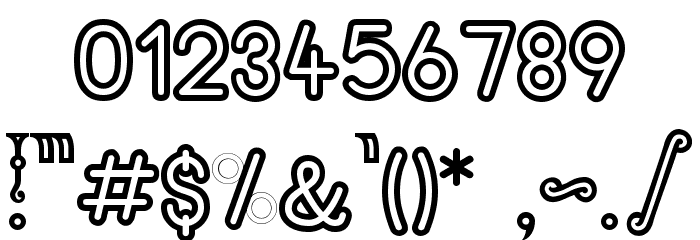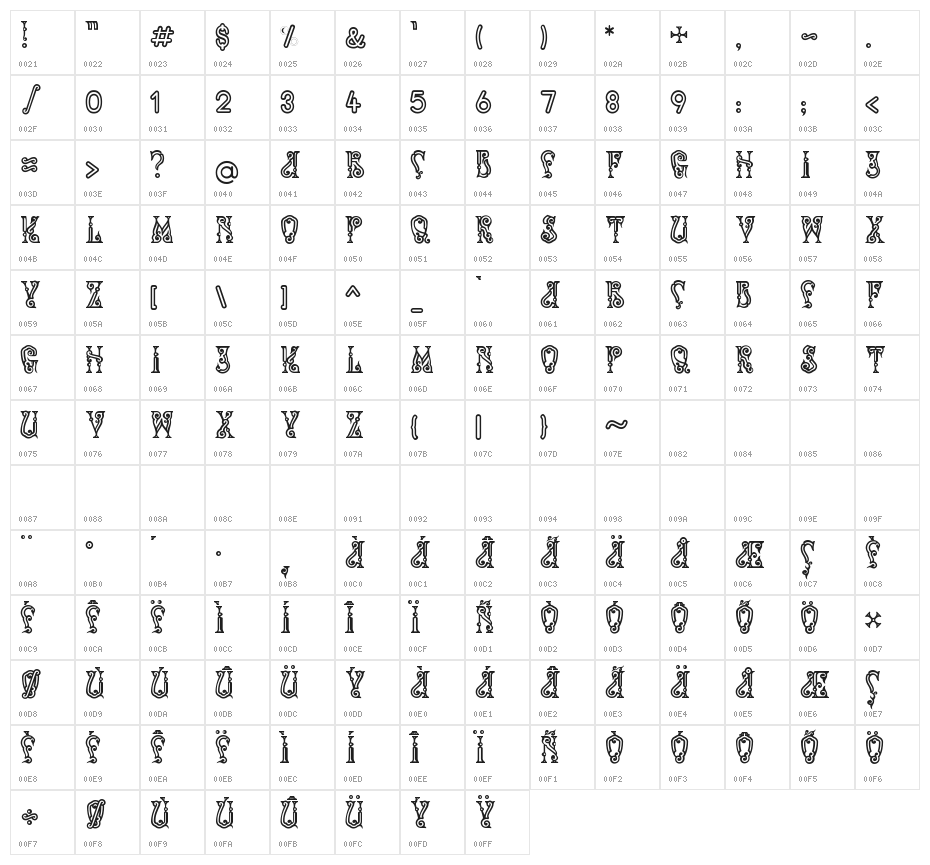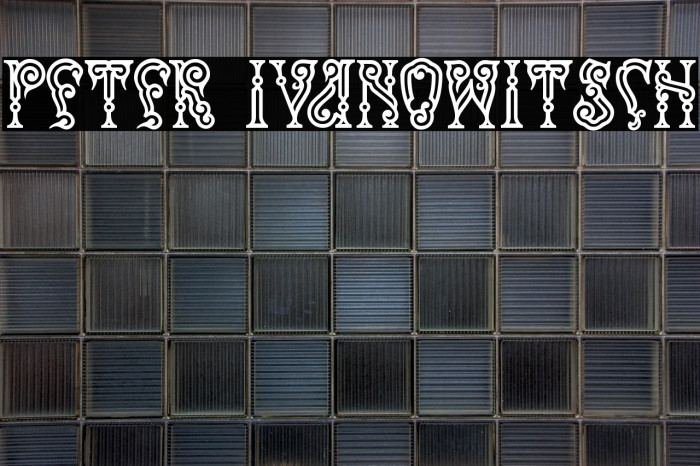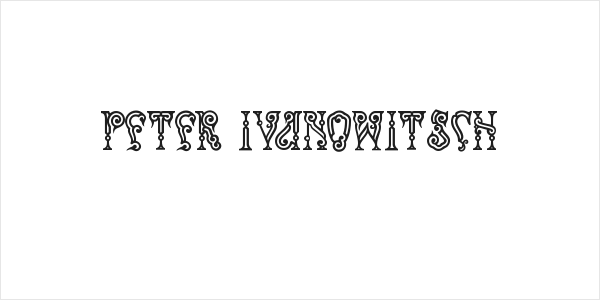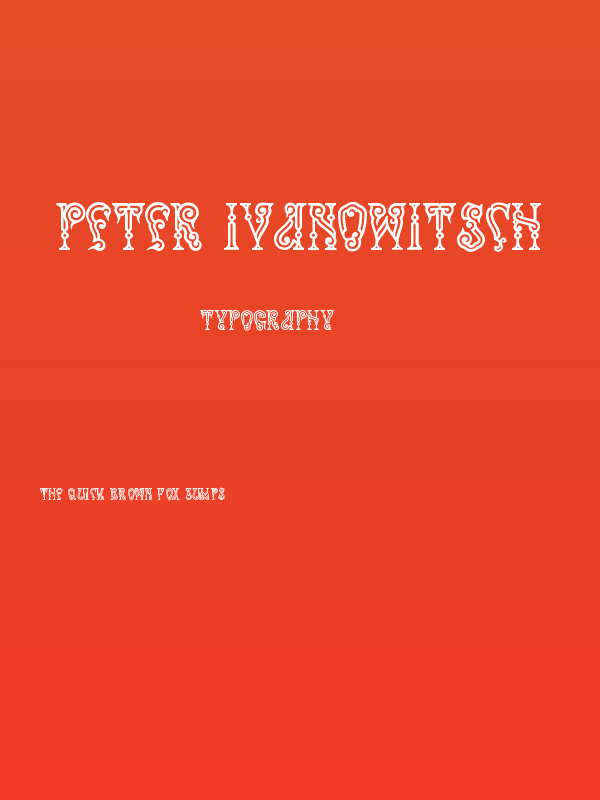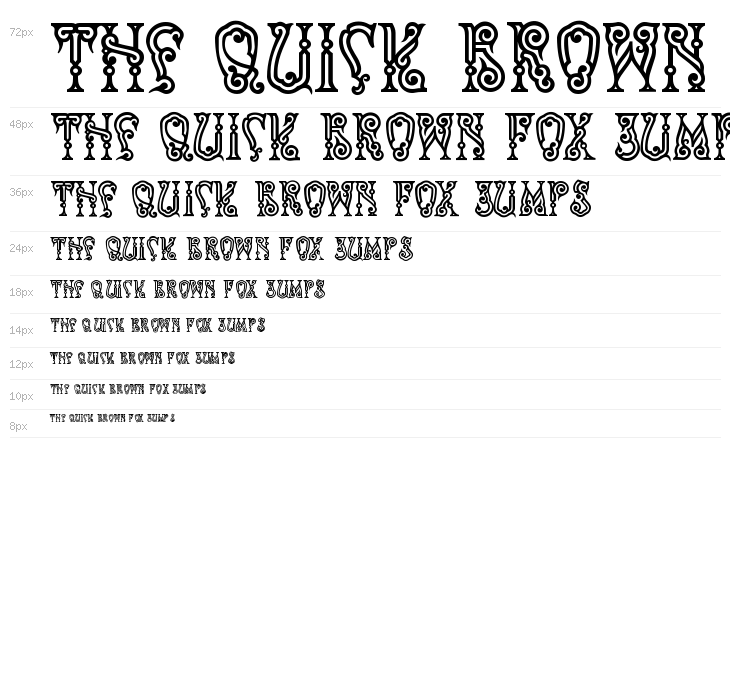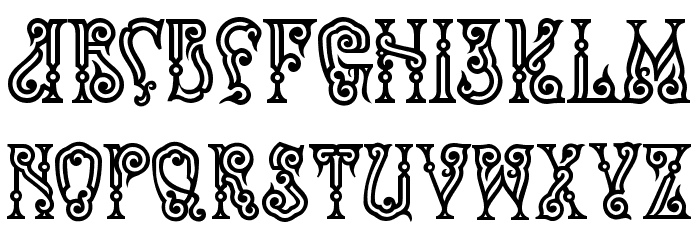
Peter Ivanowitsch Font
Peter Ivanowitsch Description
This font features an ornate and decorative style with intricate details and flourishes. Each character is designed with a bold outline and internal embellishments that give it a unique, artistic appearance. The uppercase letters are particularly elaborate, showcasing a blend of traditional and whimsical elements. The numerals and special characters maintain the same decorative theme, ensuring consistency across the font. This font's distinctiveness makes it stand out, ideal for projects that require a touch of elegance and creativity.